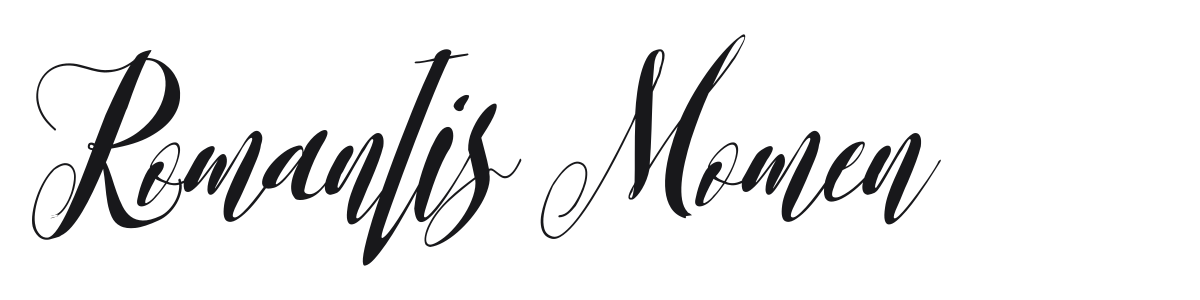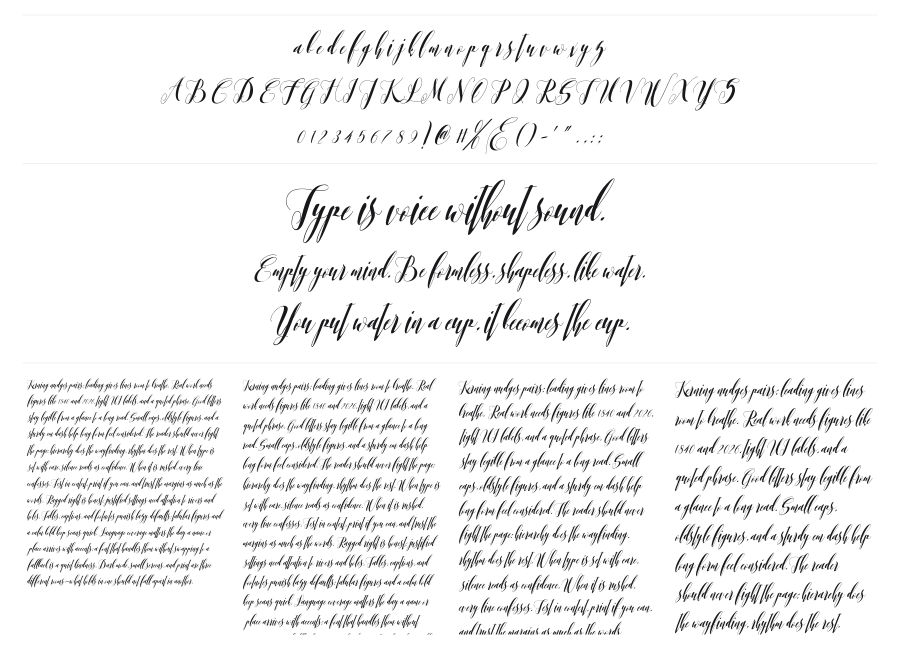
Romantis Momen
Romantis Momen is a lavish formal script rooted in copperplate and Spencerian calligraphy traditions, with extreme stroke contrast and exuberant looping flourishes. The heavy downstrokes and delicate hairline upstrokes create a rich visual rhythm that reads as hand-lettered and personal. It thrives on wedding stationery, luxury branding, and any context where romance and elegance are the point.